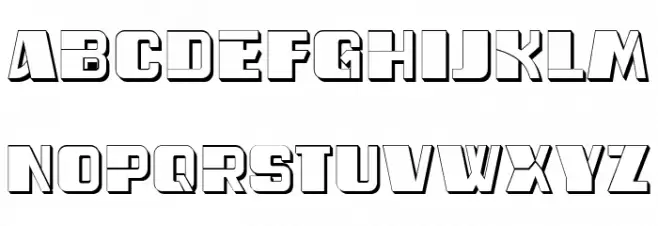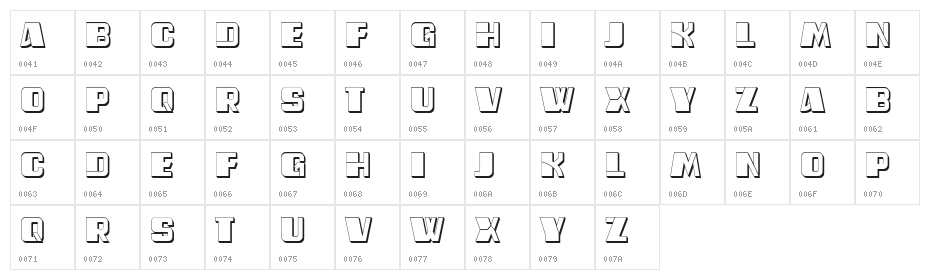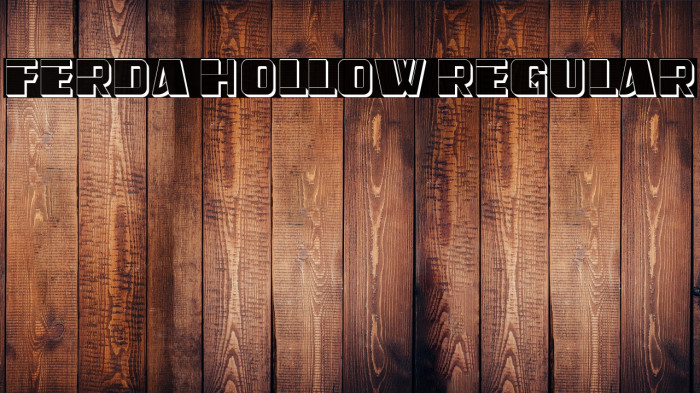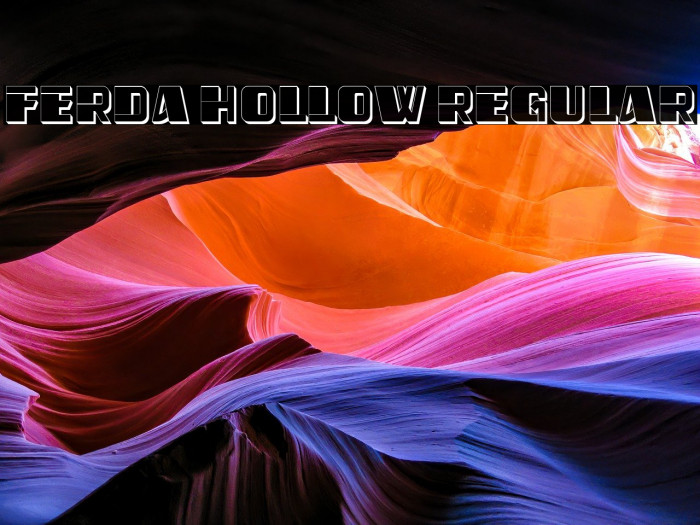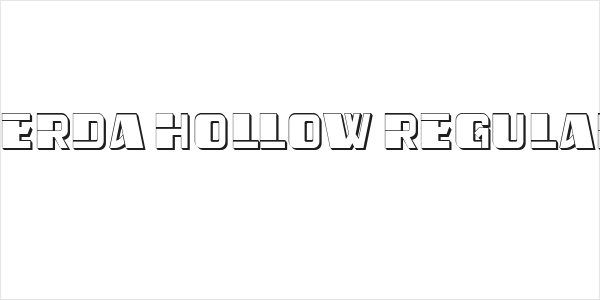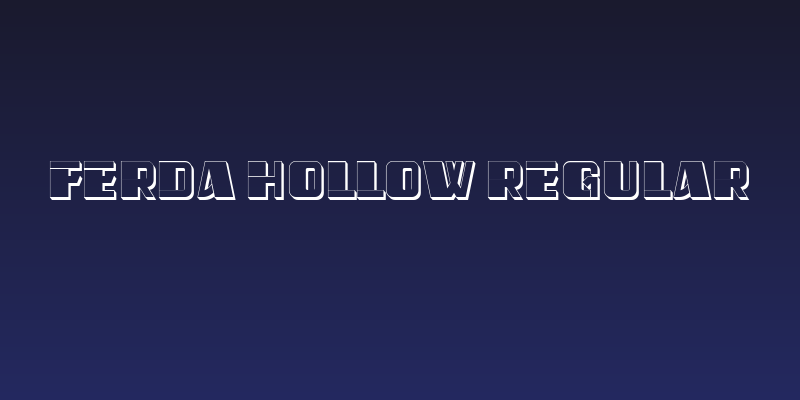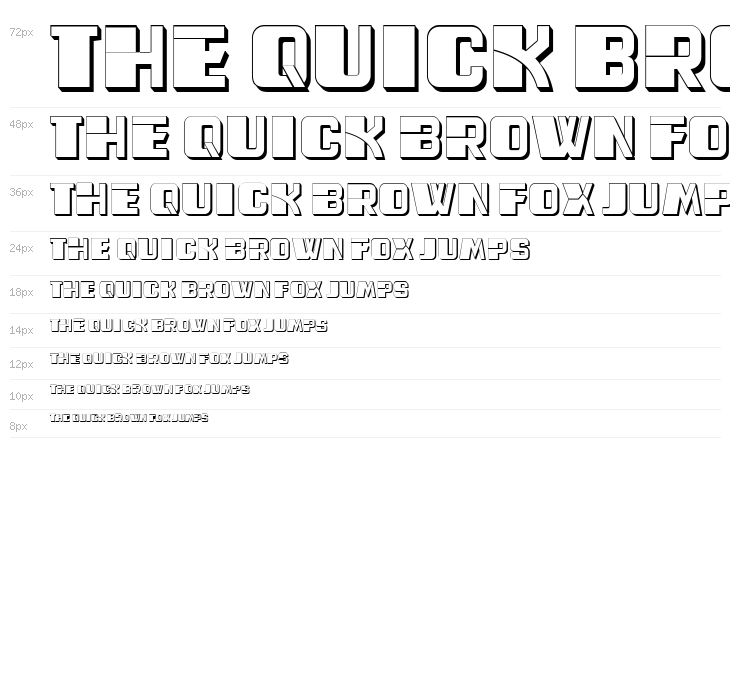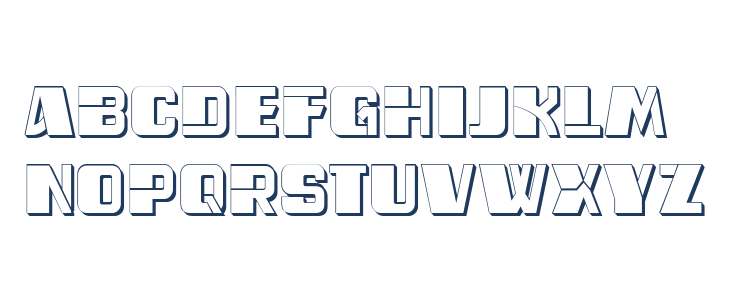
Ferda Hollow Regular Font
Ferda Hollow Regular Description
This font features a bold, hollow design with a three-dimensional effect, giving each character a distinct and eye-catching appearance. The letters are uppercase and have a geometric, block-like structure, which is accentuated by the shadowing effect that creates depth. The clean lines and sharp angles contribute to a modern and futuristic aesthetic, making it suitable for projects that require a strong visual impact. The hollow nature of the font allows for creative use of background colors or textures to show through the characters, adding versatility to its application.
A bold, hollow font with a 3D effect and geometric design from Uncategorized fonts.
- Proposed Projects: Ideal for posters, logos, headlines, and any design needing a modern, impactful look.